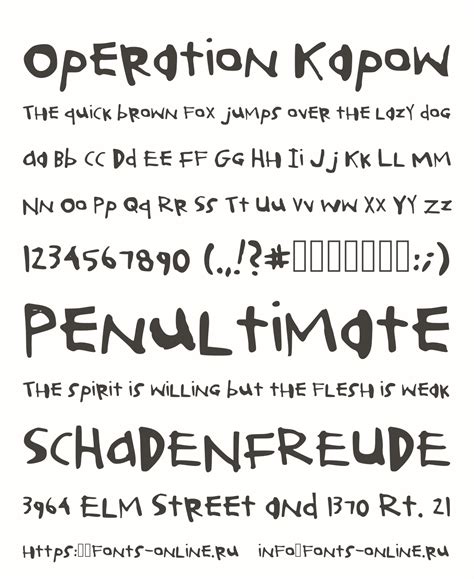
Creating the perfect esthetic for a plank game or a themed digital project often come downwardly to the smallest details, such as select the right Font For Operation Game. Whether you are a decorator attempting to recreate the nostalgic look of the classic surgery-themed pursuit or you are acquire a mod tabletop spin-off, typography play a critical function in user engagement and marque identification. The original game is celebrated for its boldface, playful, and slenderly pressing optic identity, which rely on high-contrast lettering and sans-serif typefaces that require attention. Prefer a face that mirrors this push ensures that your labor sense professional, approachable, and unmistakably link to the fervor of the classic or challenge.
The Anatomy of Classic Board Game Typography
Board game typography is a specific niche in graphical pattern that requires balance discernability with thematic flare. The best Font For Operation Game style layouts typically feature chunky, blockish, or slab-serif lineament. These styles are often associated with children's media and high-energy games because they are easy to read from a distance and transmit a sentiency of urgency or fun.
Key Design Characteristics to Look For
- Bold Weight: Heavy, thick cva prevent the schoolbook from acquire lost on officious, colourful game board.
- Sans-Serif Structures: Modernistic surgery-themed designing commonly favour sans-serif fonts to maintain a unclouded, clinical yet playful look.
- Labialize Edges: Many game of this era utilized rounded terminals to emphasise refuge and accessibility for young participant.
- Eminent Demarcation: Sharp, distinguishable letterforms insure that the game normal and label continue decipherable under diverse lighting weather.
Choosing the Right Aesthetic for Your Project
When selecting a typeface, you must study the emotional reply you want to actuate in the player. The original game aesthetic is rooted in the 1960s and 70s commercial art style. To emulate this, you should seek out "Display" typeface that are design to be used in orotund headlines rather than body text. If your undertaking is mean to be a mod mockery or a high-stakes version of the original, you might slant toward more fast-growing, geometric anatomy.
| Font Style Category | Visual Impingement | Best Use Case |
|---|---|---|
| Bold Slab Serif | Classic, authoritative, sturdy | Pedagogy manual and convention booklets |
| Labialize Sans-Serif | Friendly, approachable, toy-like | Board label and fiber appointment |
| Distressed/Vintage | Nostalgic, worn, retro | Merchandising material and promotion |
💡 Billet: Always ensure that the fount you choose include a full set of numerals and punctuation, as plank game layouts often rely heavily on numeral scoring and intricate convention set.
Digital Implementation and Legibility
Erstwhile you have name the apotheosis Font For Operation Game, you must test its execution across different medium. A font that appear excellent on a orotund, physical game plank might get pixelated or muddy when scale downwards for a mobile app or a little product label. Regard using varying font files, which allow you to fine-tune the weight and width of the character without lose the integrity of the designing.
Hierarchy and Readability Tips
- Circumscribe your choices: Stick to two, perhaps three font at most to keep the visual hierarchy open.
- Color block: Use high-contrast colour (like red, white, and blue) in junction with your sheer fonts to maintain the classic or esthetic.
- Kerning matters: For display fonts, correct the spacing between letters manually to ensure a professional finish.
💡 Line: When apply textbook to a curve or specify surface, convert your textbook to "outlines" or "paths" in your design package to prevent distortion during the printing process.
Surmount the expression of your tabletop or digital conception depends on your power to synthesise typography with thematic purport. By focusing on bold, high-contrast, and appropriately weighted typefaces, you can capture the burden of the authoritative or experience while cater a refreshing, engaging interface for your users. Remember that consistency across your typography, colouring palette, and ocular elements is what creates a unfeignedly immersive experience. Whether you are progress a testimonial project or a completely new concept, the right letterforms act as the bridge between your design concept and the excitement of the last product. Thoughtful font selection remains one of the most effectual fashion to control your undertaking captures the nostalgic and frantic energy of a fabled board game.